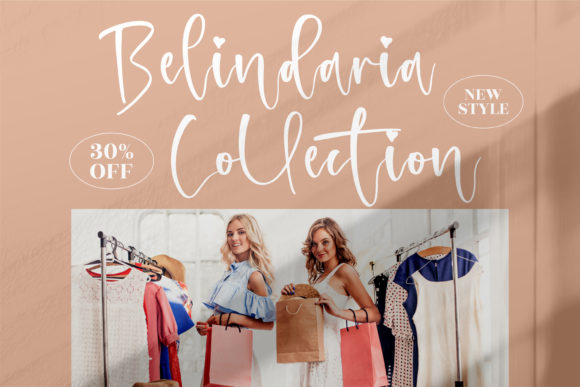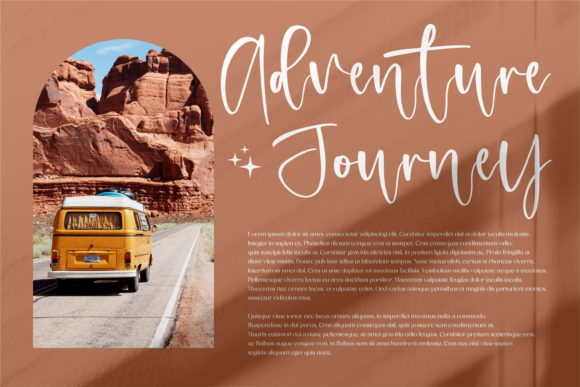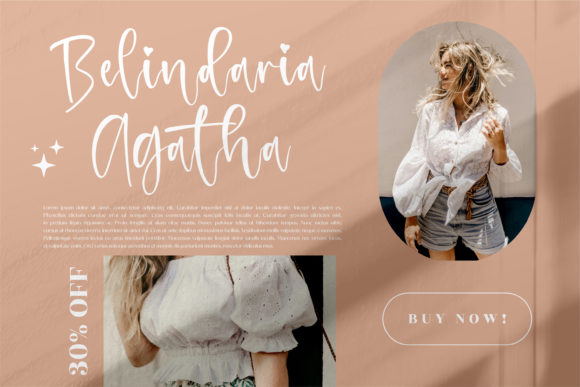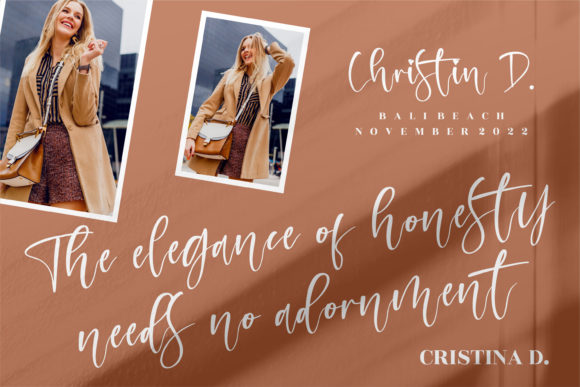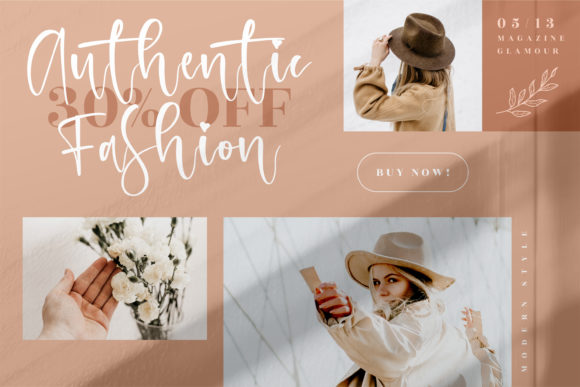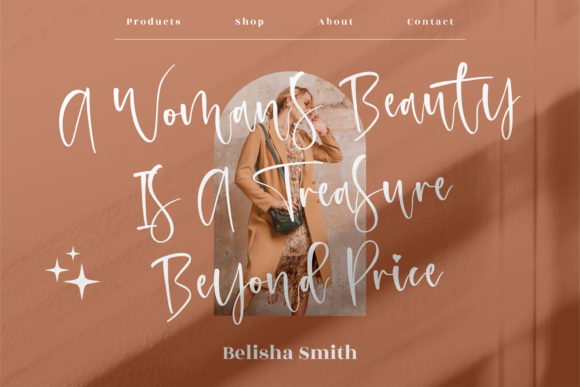
Introduction to Melinda Daily Font
Imagine you’re working on a creative project, and the perfect handwritten font slips your mind. You scroll through your design resources, but nothing seems quite right. That’s when you stumble upon Melinda Daily Font – a true gem in the world of typography. Its elegant, calligraphic script will elevate your designs to new heights, making it a valuable addition to any designer’s toolkit.
As a designer, you understand the importance of having high-quality design resources at your fingertips. Melinda Daily Font delivers, with its unique blend of classic and contemporary flair. Whether you’re working on a branding project or a creative campaign, this font is sure to impress. And with its transparent background, you can easily overlay it on any design element, giving you complete creative control.
With its PUA encoded features, accessing all the glyphs and swashes is a breeze. Download Melinda Daily Font for free and unlock a world of creative possibilities. Whether you’re a seasoned pro or just starting out, this font is sure to become a favorite in your design arsenal.
Key Features of Melinda Daily Font
- High-quality design: This font boasts high-quality design elements, making it a valuable resource for designers and artists.
- Transparent background: The Melinda Daily Font features a transparent background, allowing for seamless integration into any design.
- High-resolution design: With a high resolution of 300 DPI, the Melinda Daily Font is suitable for use in a variety of creative projects, from print to digital media.
- Unique characteristics: The font’s unique characteristics, including its elegant and sophisticated design, make it an excellent choice for designers seeking a distinctive look.
- Design resource: The Melinda Daily Font serves as a valuable design resource, offering a range of creative possibilities for designers and artists.
Honest Review: Melinda Daily Font
As a designer, I’ve had the chance to work with a variety of fonts, and I’m excited to share my thoughts on the Melinda Daily Font. I downloaded it for free from a popular design resource, and I was immediately impressed by its high quality and versatility.
- ✨ Beautiful, elegant script font that’s perfect for creative projects
- ✨ Can be used with a transparent background, adding a touch of sophistication to any design
- ⚠️ Limited font weights and styles, which may limit its use in certain design contexts
- ⚠️ Not ideal for body text, as it may be difficult to read in smaller font sizes
Overall, I think the Melinda Daily Font is a great addition to any designer’s toolkit. While it may not be perfect for every project, its unique style and high quality make it a valuable resource for creative projects. With a little creativity, I think you’ll find plenty of ways to use it effectively.
The Melinda Daily Font is a high-quality design resource available for free download. Its transparent background makes it ideal for creative projects that require a clean and elegant look.
To get the most out of the Melinda Daily Font, use it in conjunction with other design elements that complement its elegant and modern look.
The Melinda Daily Font is ideal for a variety of creative projects, including:
- Website headers and footers
The Melinda Daily Font is a high-quality, professional font that can be customized to fit your design needs. With its transparent background and scalable design, you can easily resize the font without compromising its quality. Additionally, the font’s design makes it easy to combine with other fonts and design elements to create unique and creative projects.